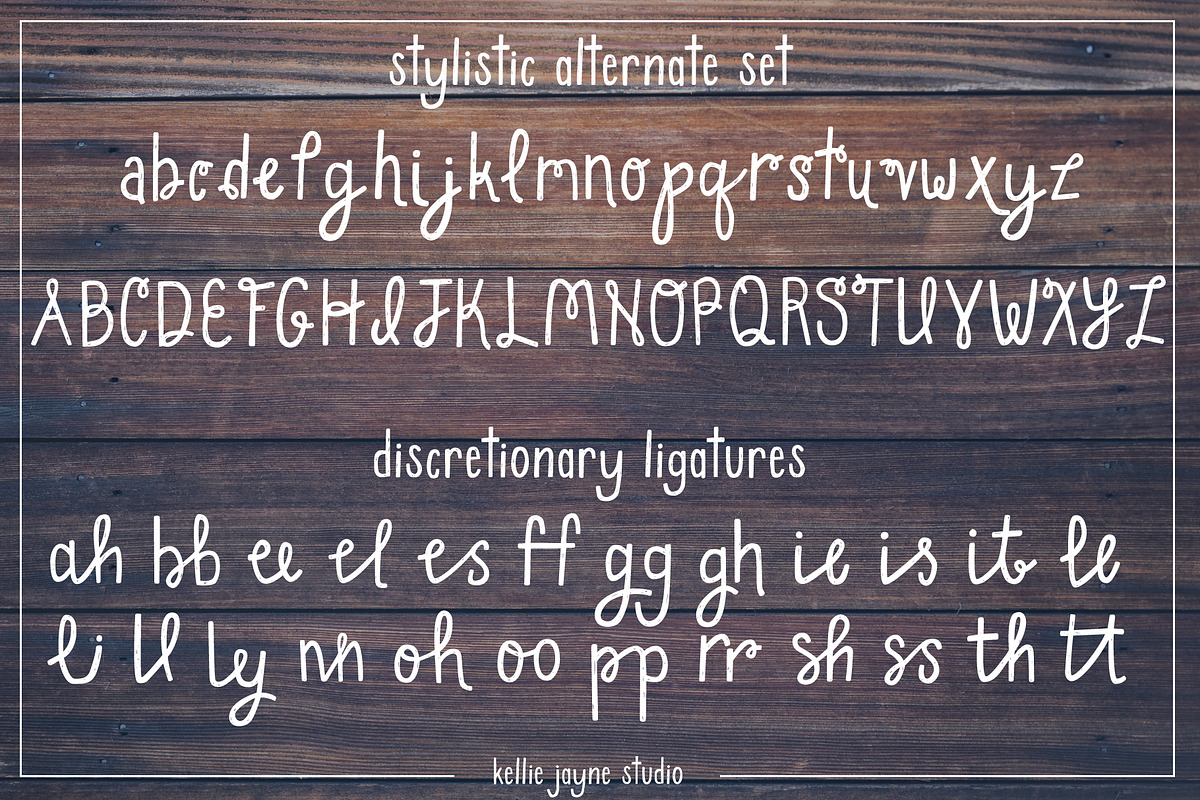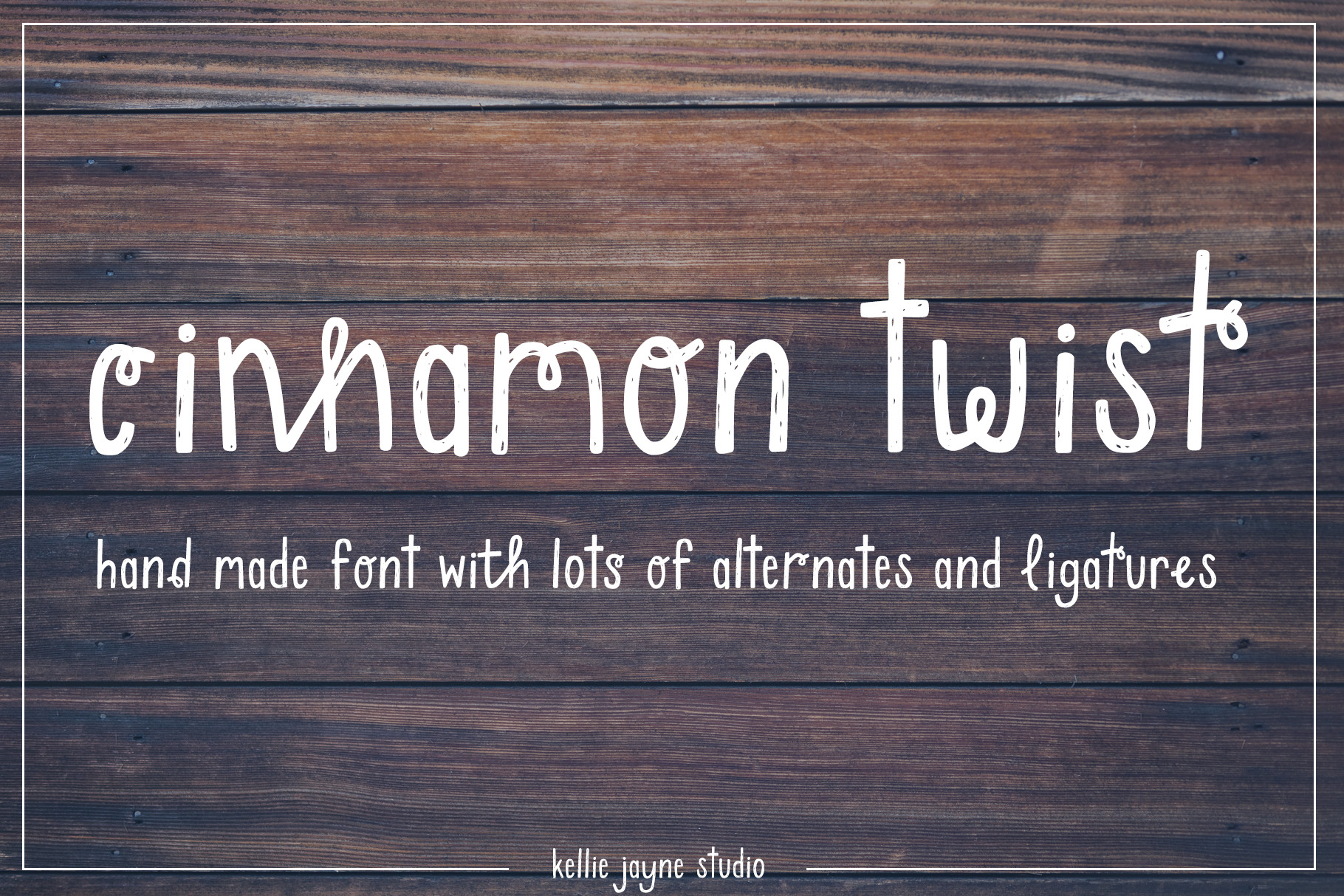
Cinnamon Twist Handdrawn Font
Cinnamon Twist is a fun and sweet handmade font packed with stylistic alternates and discretionary ligatures. Each character in this font was handwritten in ink. This font has a subtle texture, giving it a whimsical, laidback feeling.
- Open Type features include a full stylistic set of twisty letters and over 20 discretionary ligatures
- multilingual characters